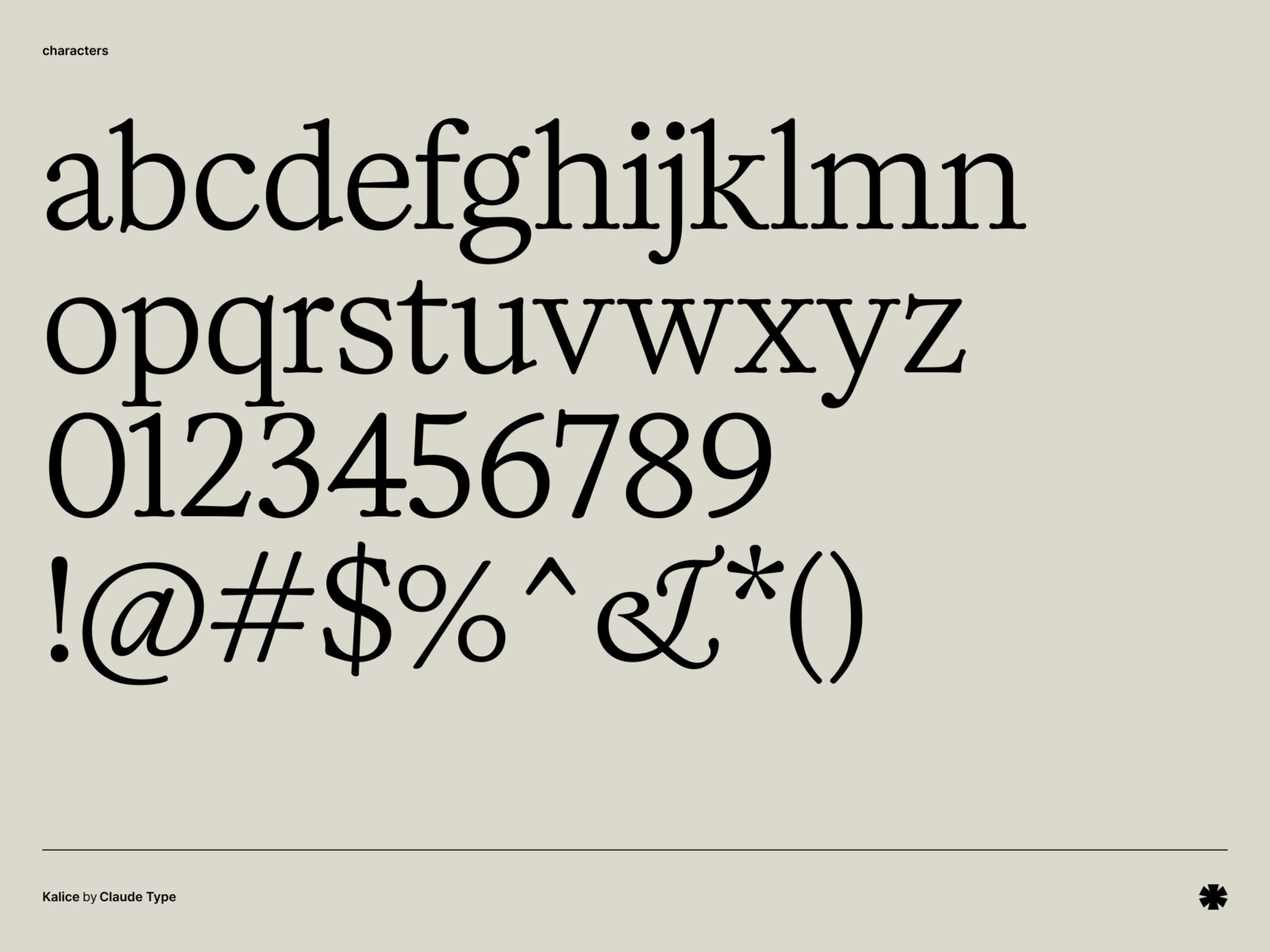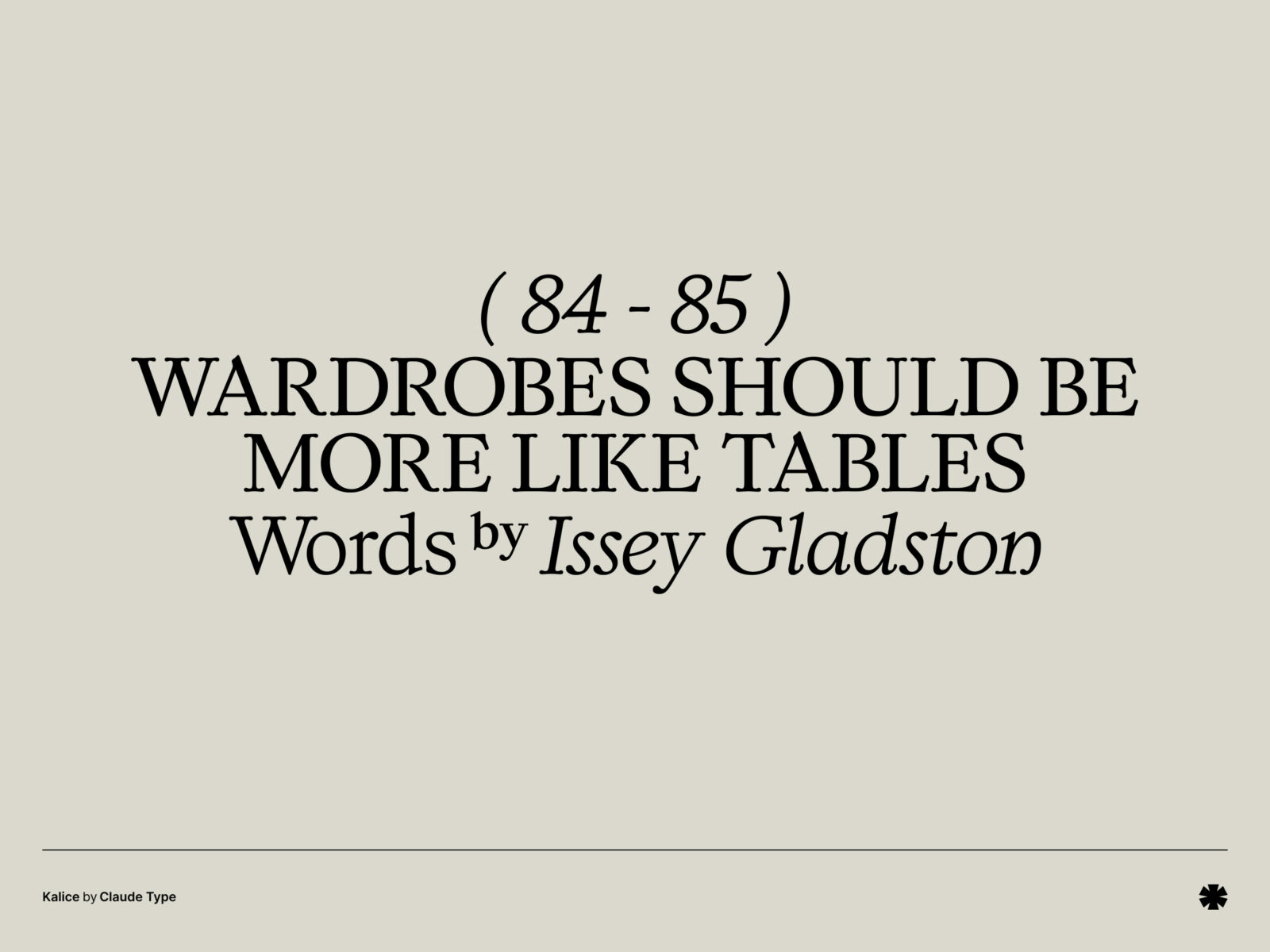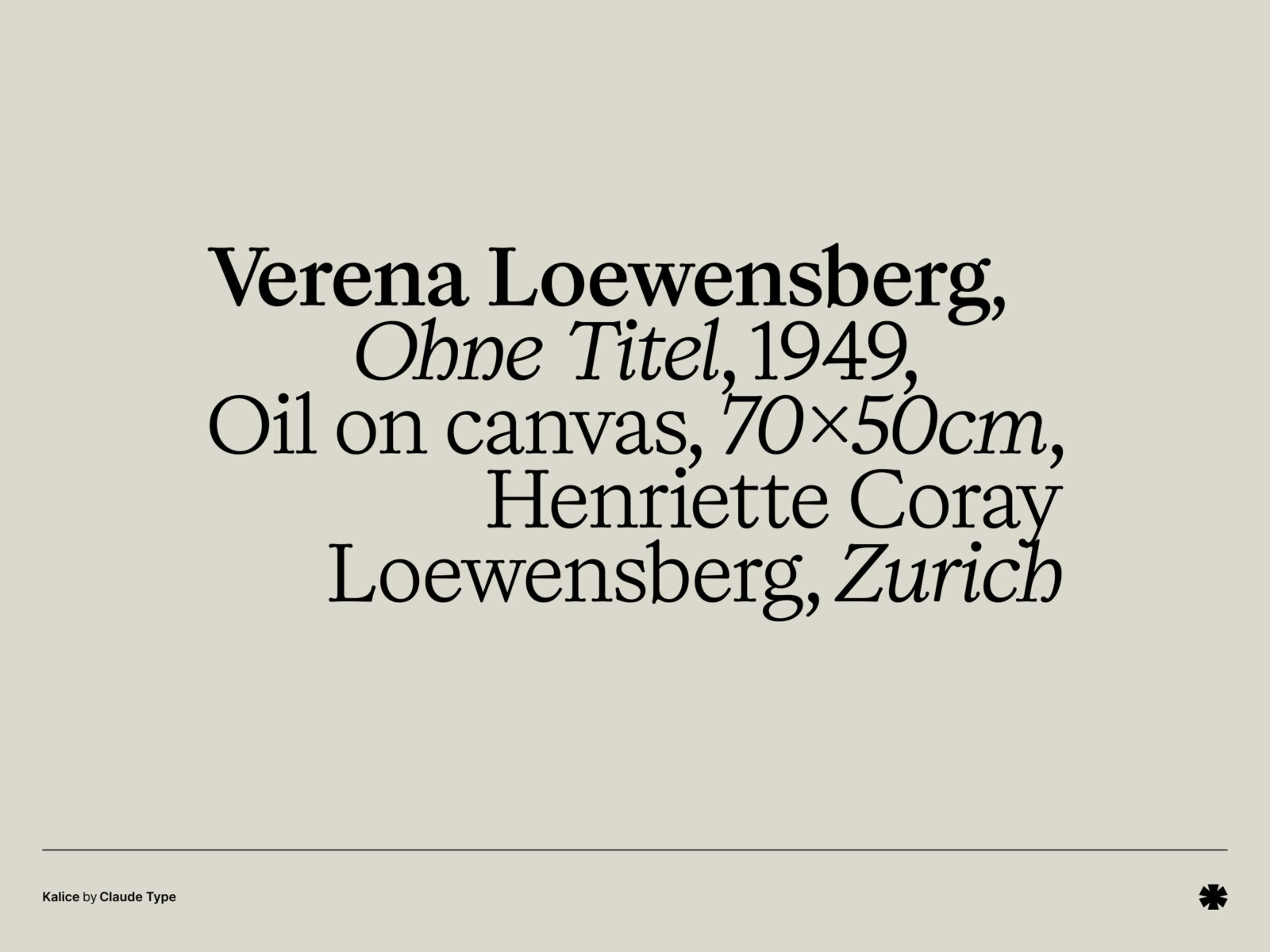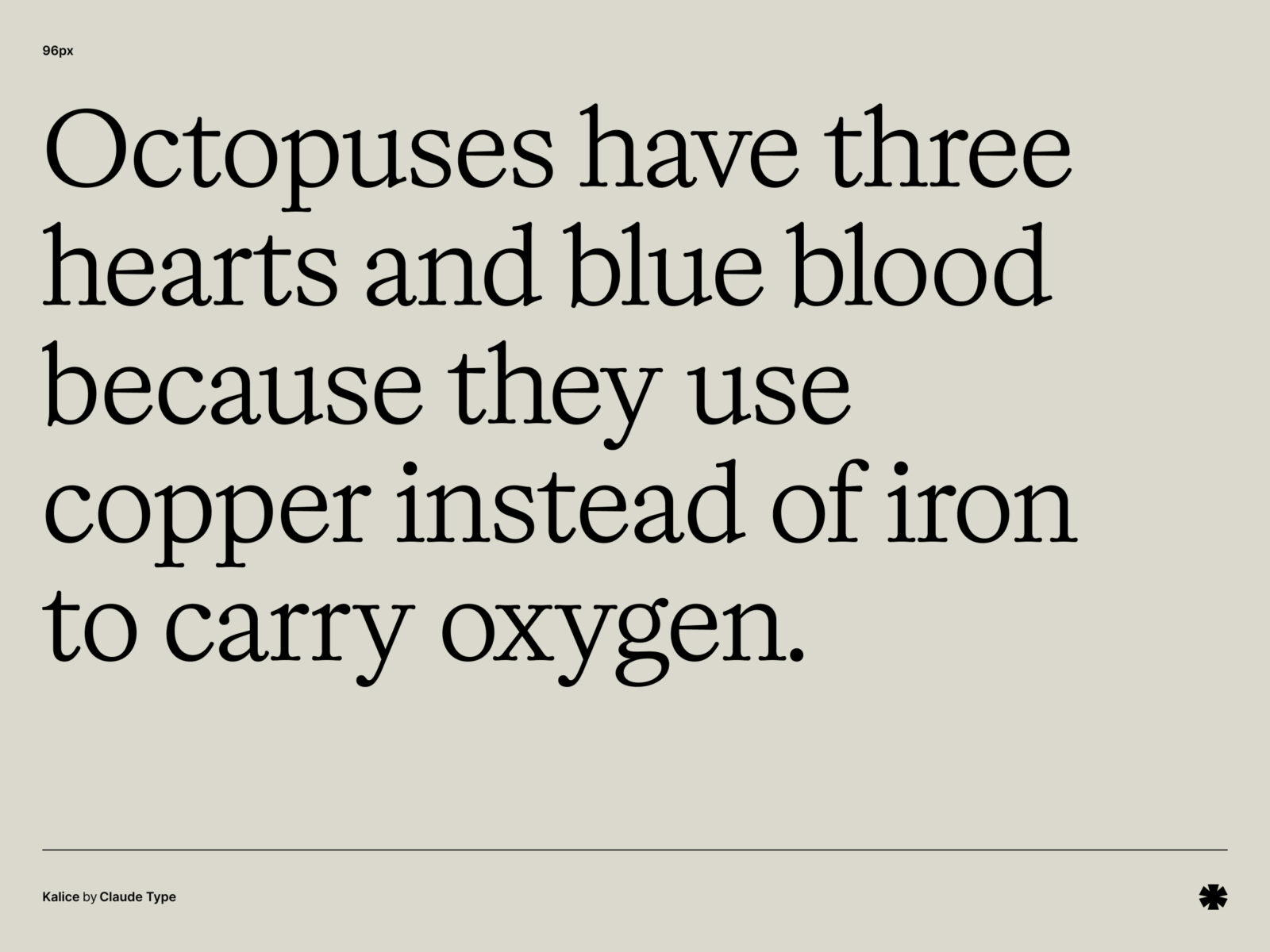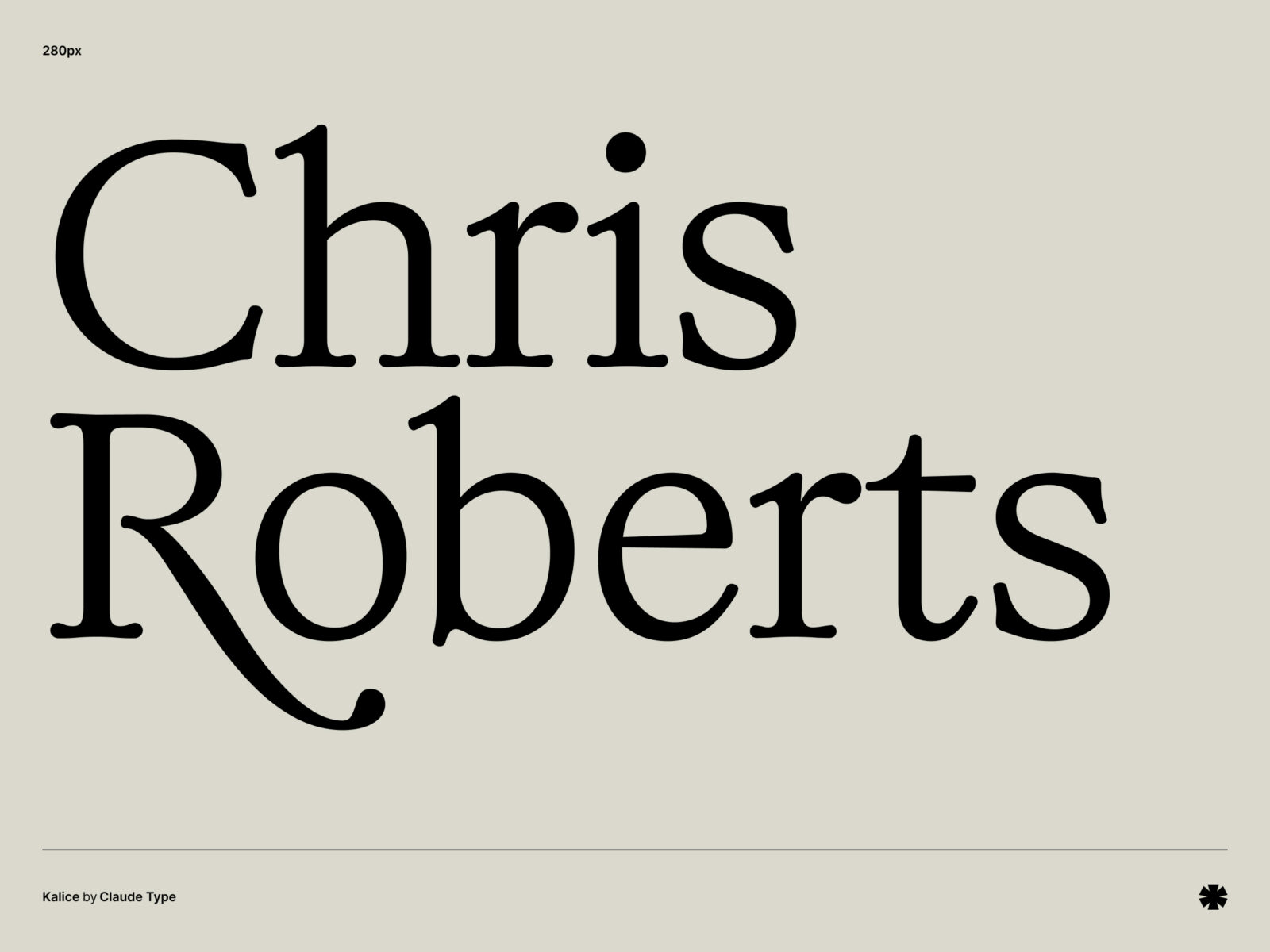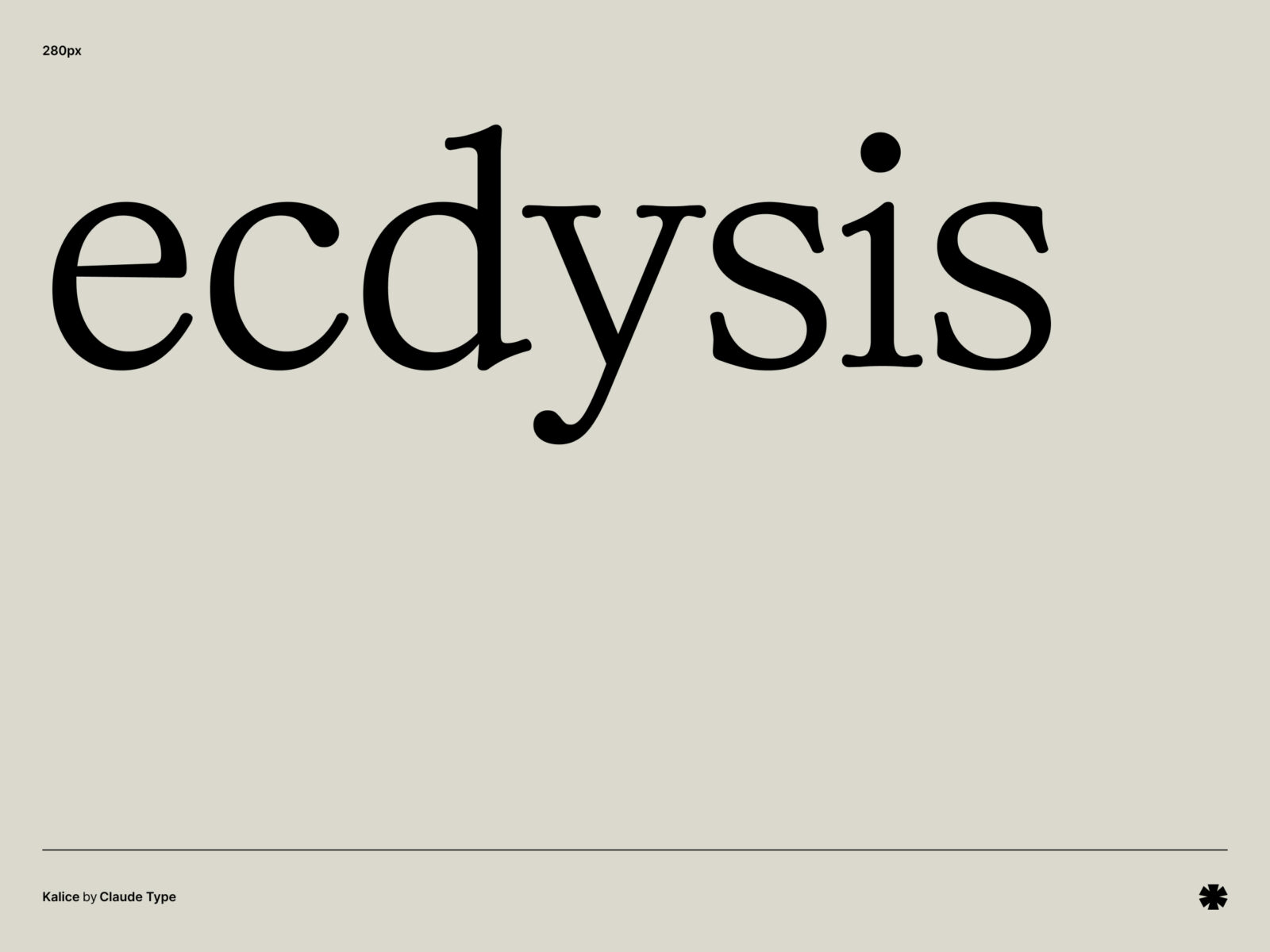
Kalice is a particularly interesting typeface because of its versatility. It works well as a headline, where its details can really stand out, but it also performs reliably as a body typeface, maintaining strong readability even at smaller sizes.